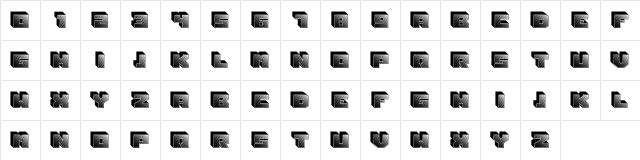
Shiny Blocks Less Gloss Regular
| Foundry | Vladmir Nikolic |
Design Context for Shiny Blocks Less Gloss Typeface
Shiny Blocks Less Gloss is a composed and adaptable typeface that performs quietly and consistently across a wide range of design contexts.